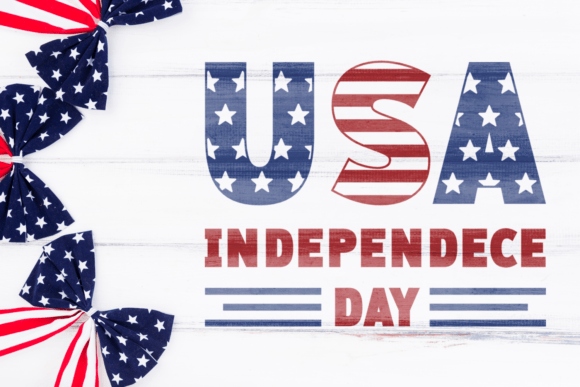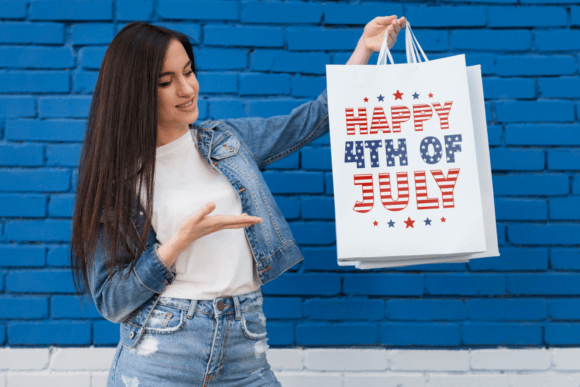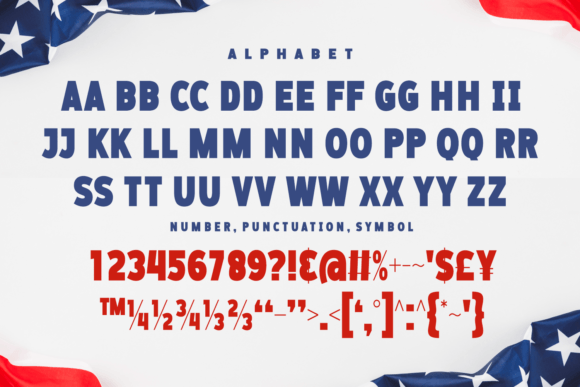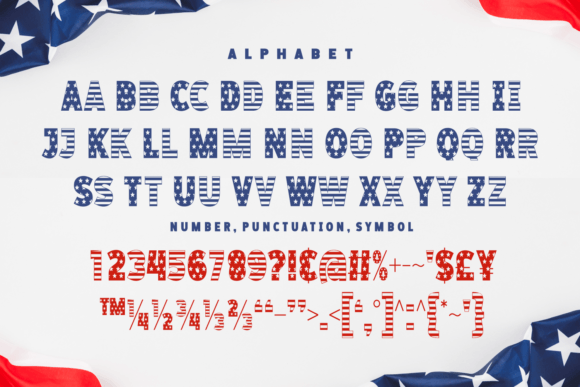
Discover the Spirit of America with the American Stars Font
I’ll never forget the design project that led me to the American Stars font. I was working on a Fourth of July themed invitation for a client’s party, and I was struggling to find the perfect font that captured the essence of American patriotism. The client wanted something bold, eye-catching, and distinctly American. After hours of scouring font libraries and marketplaces, I stumbled upon the American Stars font. It was love at first sight! ✨
A Font that Embodies American Values
The American Stars font is more than just a typography – it’s a salute to the ideals that shape a nation. Instilled with the spirit of patriotism, unity, and liberty, this decorative font artfully melds the symbolic stars and stripes into each of its bold, distinctive letters. It’s ideal for projects that shine a spotlight on America’s rich culture, history, or significant events like Independence Day, Veterans Day, or Memorial Day.
- ✅ Unique and bold design that immediately grabs attention
- ✅ Seamlessly weaves in the essence of American values and patriotism
- ✅ Perfect for headlines, banners, and signage
- ✅ Easy to read and recognize, even in larger sizes
- ⚠️ Limited use cases – works best for patriotic or American-themed projects
- ⚠️ May not be suitable for body text or smaller font sizes
- ⚠️ Some users may find the font too bold or overpowering
The American Stars font comes with a range of OpenType features and glyphs that allow you to customize your text and make it more visually appealing. Experiment with different stylistic alternates, swashes, and ligatures to create unique and eye-catching designs.
The Story Behind the American Stars Font
The American Stars font was designed by a team of creatives who wanted to capture the essence of American patriotism and values. Inspired by the country’s rich history and symbolism, they crafted a font that would embody the spirit of freedom and unity. The result is a unique and eye-catching font that’s perfect for any project that celebrates America.
Q: Is the American Stars font suitable for body text?
A: While the American Stars font is bold and eye-catching, it’s best suited for headlines and titles rather than body text.